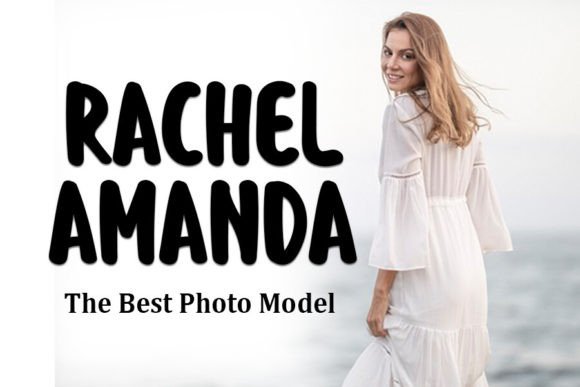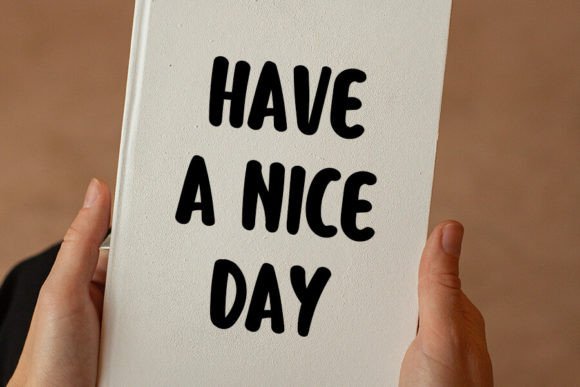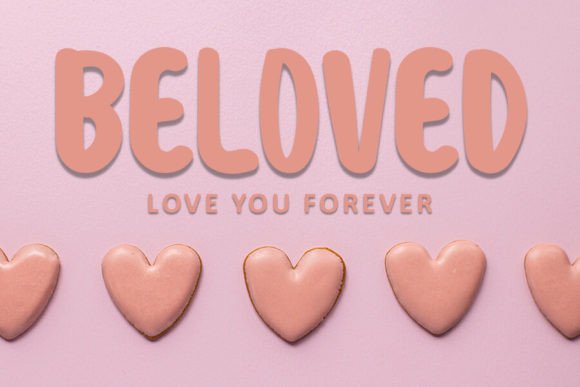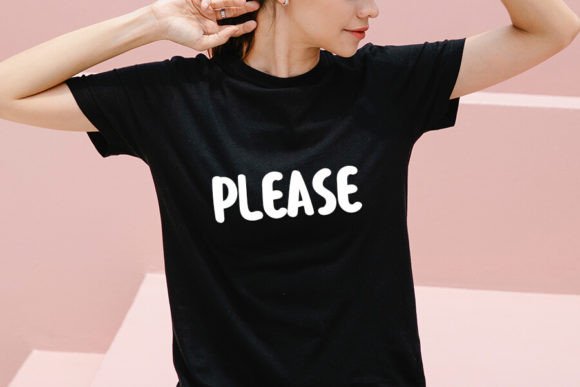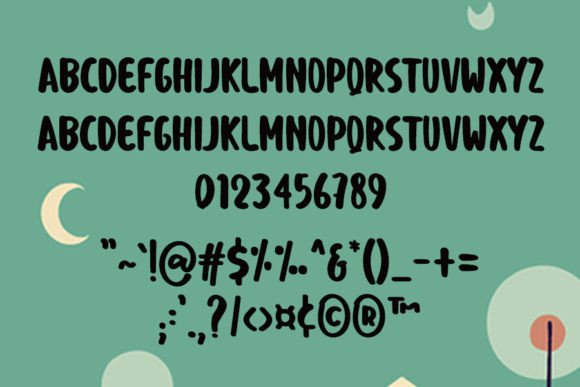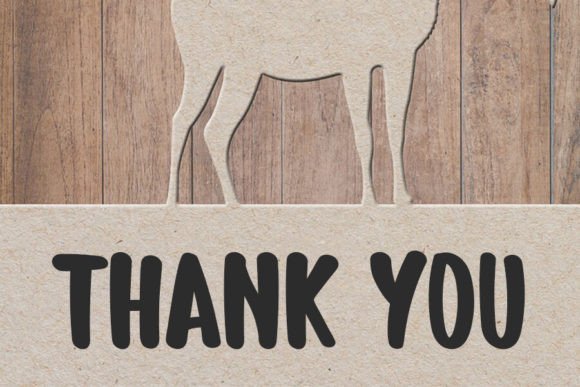
Introducing Happy Story Font: Elevate Your Designs with Timeless Elegance
Are you on the hunt for a font that adds a touch of sophistication and whimsy to your projects? Look no further than Happy Story Font, a stylish handwritten font that embodies the perfect blend of classic calligraphy and modern flair. Inspired by timeless classics, Happy Story is designed to bring a contemporary atmosphere to your designs while maintaining impeccable form.
What Makes Happy Story Font Stand Out?
Happy Story Font is not just any ordinary font. Its unique charm lies in its balanced and varied design, making it an excellent choice for a wide range of projects. Whether you’re working on a branding campaign, crafting a beautiful wedding invitation, or designing engaging social media content, Happy Story Font is sure to enhance the beauty of your work.
One of the standout features of Happy Story Font is its PUA (Private Use Area) encoding. This means that accessing the font’s amazing glyphs and ligatures is incredibly easy. With PUA encoding, you can unlock a world of creative possibilities without the hassle of complicated font editing. This feature makes Happy Story Font not only beautiful but also highly functional and user-friendly.
Key Features of Happy Story Font
- Stylish Handwritten Design: Happy Story boasts a stylish, handwritten appearance that adds a personal touch to any project.
- Contemporary Atmosphere: Despite being inspired by classic calligraphy, Happy Story has a distinctly modern feel, making it perfect for contemporary designs.
- Impeccable Form: The font maintains a high level of elegance and sophistication, ensuring your projects look polished and professional.
- Balanced and Varied: The design of Happy Story Font is carefully balanced and offers a range of variations, allowing for versatile use across different types of projects.
- PUA Encoded: Enjoy easy access to all glyphs and ligatures, enhancing your creative workflow.
Who Can Benefit from Happy Story Font?
How to Make the Most of Happy Story Font
To truly make the most of Happy Story Font, experiment with its various glyphs and ligatures. These elements can add depth and uniqueness to your designs, setting them apart from the ordinary. Here are some tips:
- Mix and Match: Play around with different sizes, colors, and combinations of the font’s glyphs to create dynamic visuals.
- Pair with Complementary Fonts: Use Happy Story Font alongside simpler sans-serifs or serif fonts to create contrast and hierarchy in your designs.
- Utilize for Headers and Titles: The font’s elegant and modern look makes it perfect for headings and titles, adding a touch of luxury to your projects.
Happy Story Font is more than just a typeface; it’s a tool for creativity and expression. Its stylish, handwritten design combined with its contemporary atmosphere and impeccable form makes it a versatile asset for any designer or craftsperson. With PUA encoding providing easy access to its extensive features, Happy Story Font is set to become your go-to choice for projects that demand a little extra elegance and whimsy.